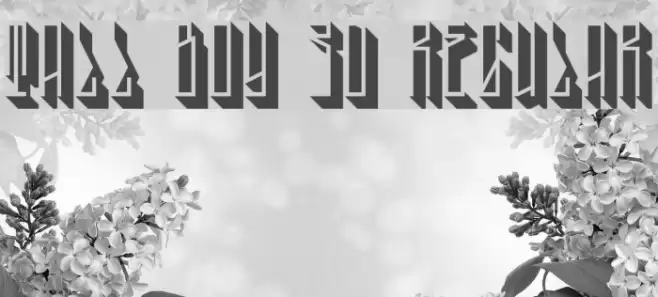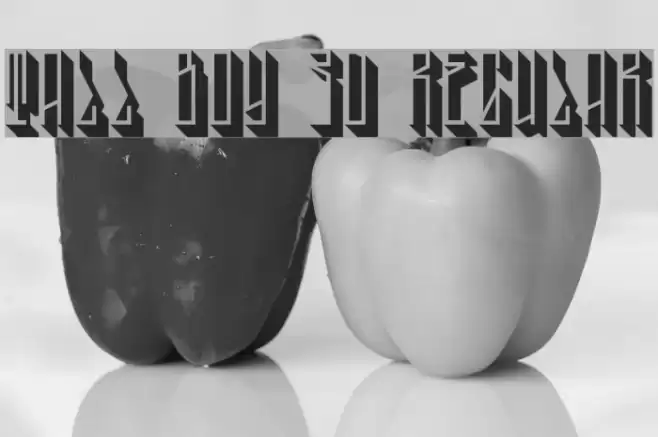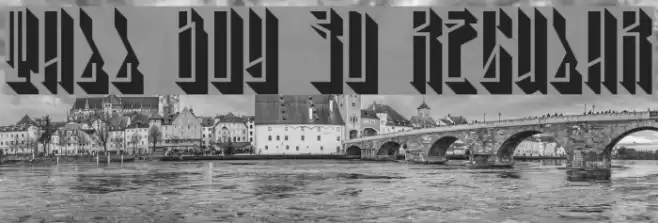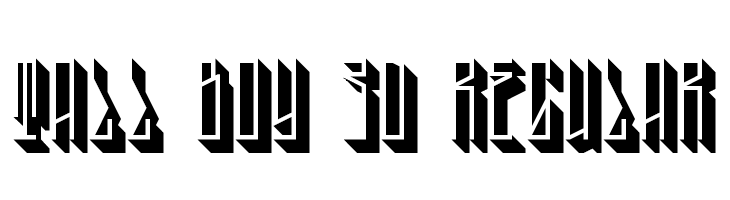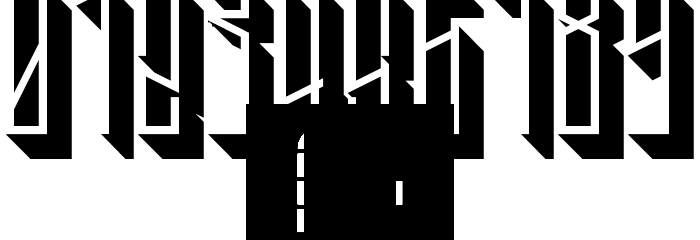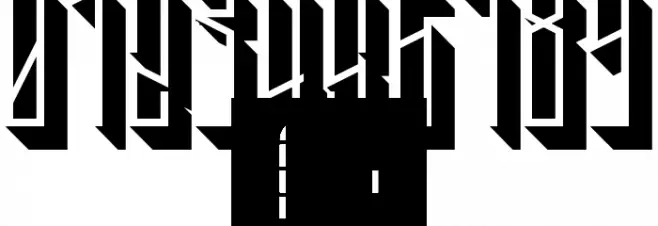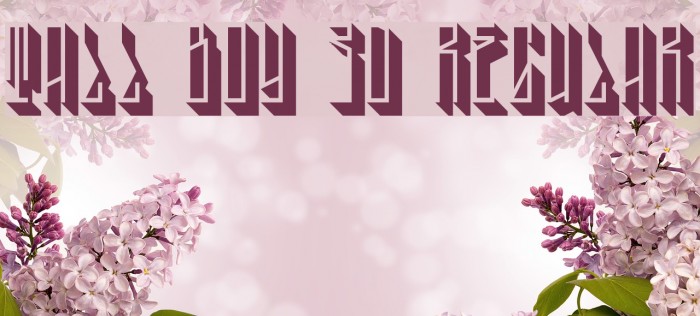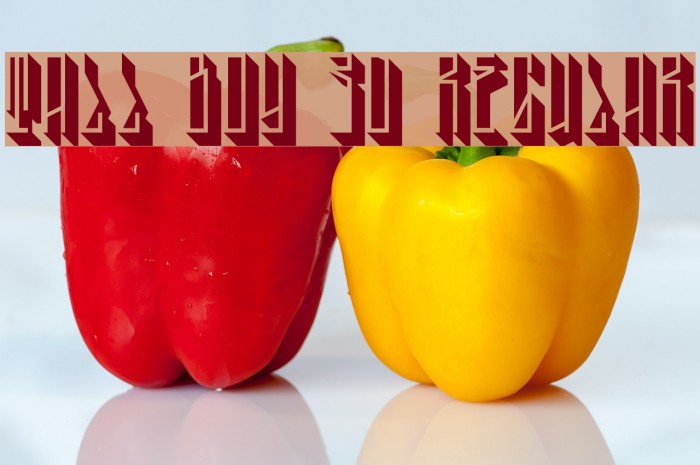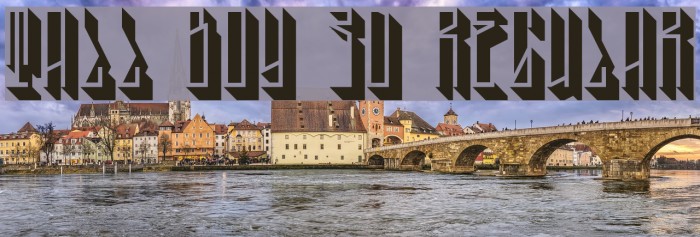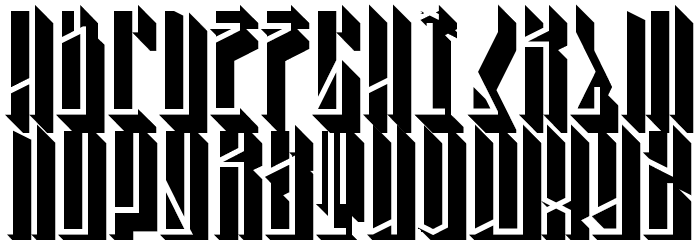
Tall Boy 3D Regular Font
Tall Boy 3D Regular Description
This font features a bold and striking 3D effect, with a highly geometric and angular design. The characters are tall and narrow, creating a sense of height and drama. The use of sharp edges and pointed tips gives it a futuristic and edgy appearance. The font's shadowing effect enhances the three-dimensional look, making it stand out prominently. It is highly stylized, with each letterform crafted to maintain a consistent visual theme, making it ideal for attention-grabbing headlines or artistic projects.
A bold, angular 3D font with a futuristic and dramatic style from Uncategorized fonts.
- Proposed Projects: Ideal for posters, album covers, video game titles, and any project requiring a bold, eye-catching typeface.
- Character Spacing: Tight
- Overall Style: Futuristic, Edgy